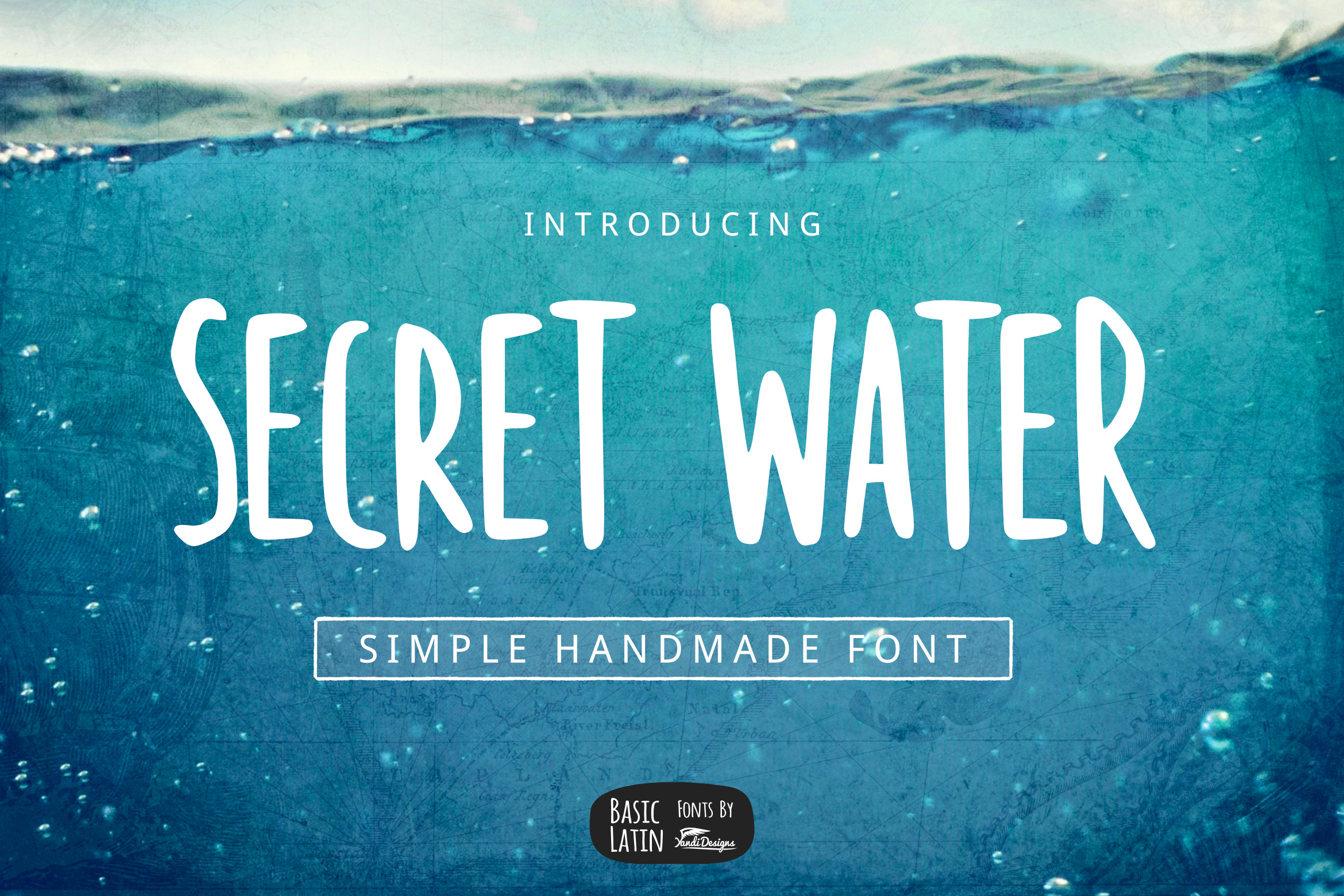
Secret Water Simple Font
Secret Water is simple handmade multipurpose font , suitable for many project children book, quotes, logo , heading , title etc.